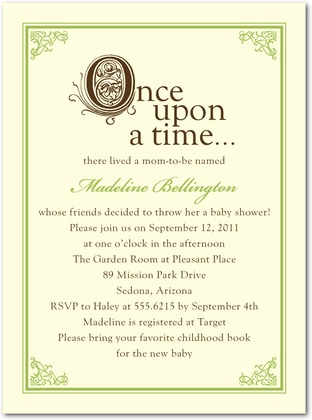
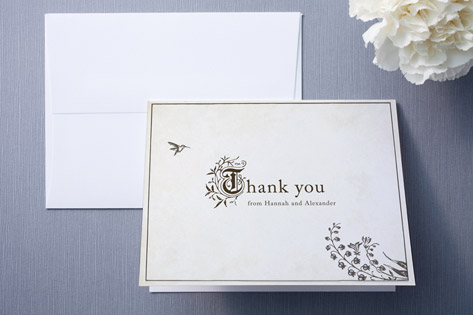
The font in this Thank You card as well.
the sript font is Bickham Script Pro-
the top font is a combination of a serif font and an Ornate Capital Letter in the case the "O"
if you do a google image search for ornate capitals you may find one you like
The brown font at the top as well as the green font for the name